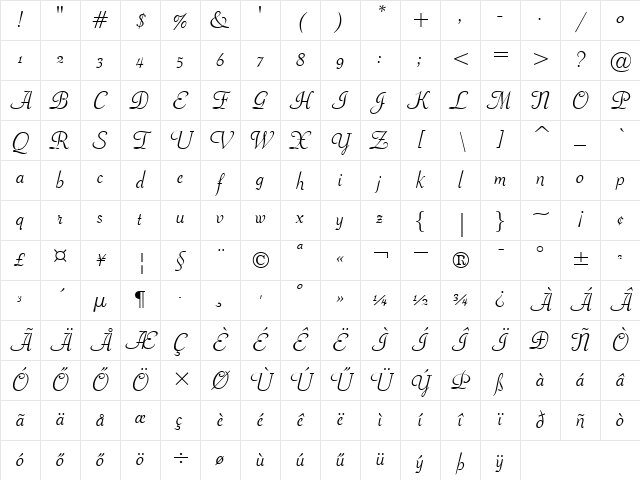
Huni_Piranesi It BT Italic is a composed and adaptable typeface that performs quietly and consistently across a wide range of design contexts. The slanted form adds forward momentum and visual energy.